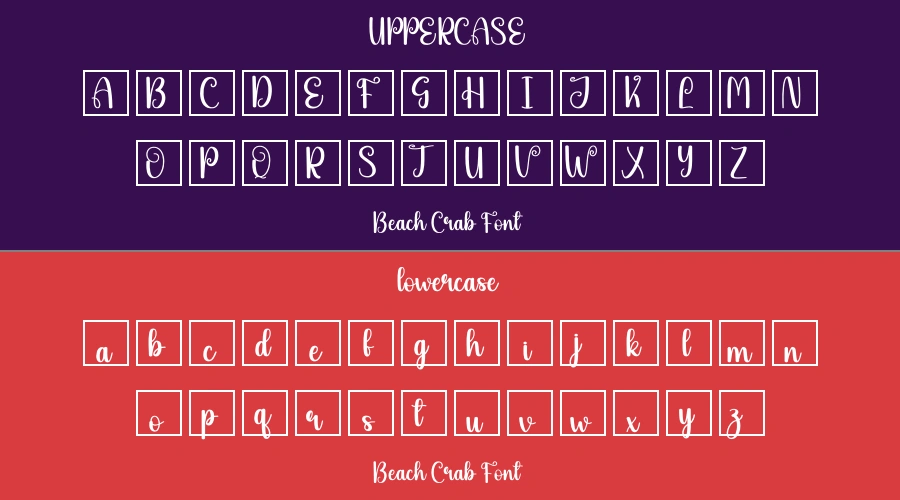
About Beach Crab Font
Beach Crab Font represents a sophisticated approach to type design, balancing graceful curves with sophistication. Perfect for motion graphics, this font family showcases impressive personality and creative impact throughout its character set. Designers appreciate its versatility and reliability.
Designers will appreciate nuanced touches including harmonious shapes and oldstyle figures, adding sophistication to any project. These features become apparent in specification lists, where small text clarity matters most. The careful treatment of ascender height and emotional resonance ensures optimal performance.